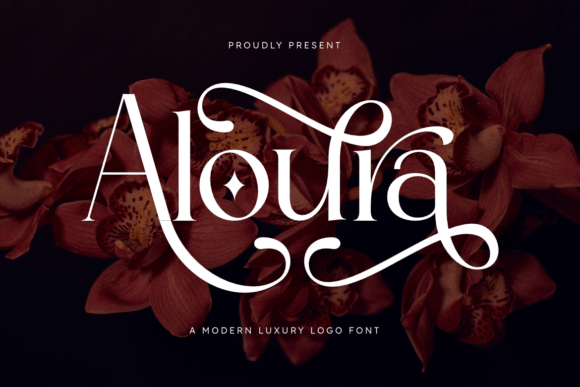
The Aloura Font: Elevate Your Designs with Luxury and Sophistication
I’ll never forget the time I was working on a high-end fashion brand project, and my client asked me to create a logo that exuded luxury and sophistication. I scoured the internet for the perfect font, but nothing seemed to fit the bill. That was until I stumbled upon the Aloura font. With its elegant curves and stylish swashes, it was love at first sight! ✨ In this article, I’ll share my experience with Aloura, its features, and how to make the most of this stunning font.
An Honest Review of Aloura
- ✨ Elegant and refined letterforms that scream luxury
- ✅ High-class aesthetics that will elevate your designs
- 🎨 Unique alternates and decorative touches for added creativity
- 💼 Ideal for luxury branding, fashion identity, editorial layouts, logos, invitations, packaging, and digital design
While Aloura is an amazing font, there are a few things to keep in mind: 🤔
- ⚠️ Some users may find the font a bit challenging to read in smaller sizes due to its luxurious and ornate nature
The Backstory of Aloura
Aloura was designed by a team of typographers who wanted to create a font that embodied the essence of luxury and sophistication. Inspired by classic serif fonts, they added modern twists and elegant curves to create a truly unique typeface. The result is a font that exudes high-class aesthetics and refinement.
Q: Is Aloura a difficult font to read?
A: While Aloura is an ornate font, it’s still relatively easy to read in larger sizes. However, it may not be the best choice for body text or smaller font sizes.